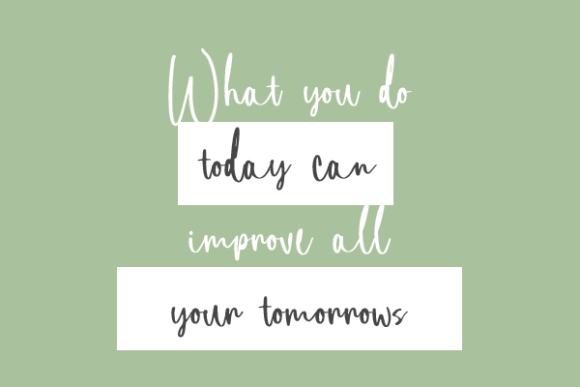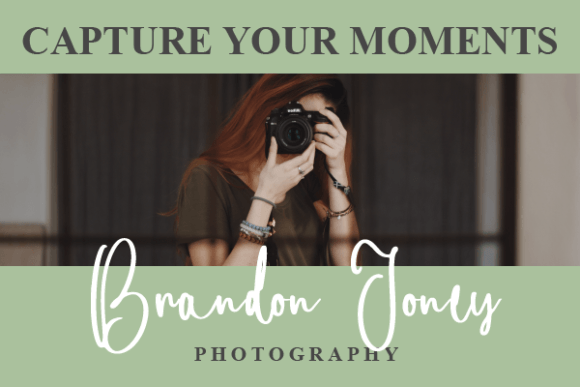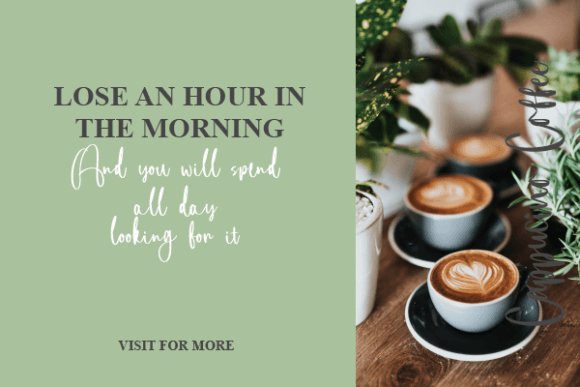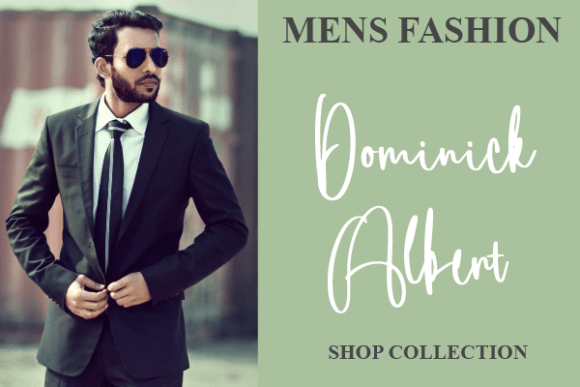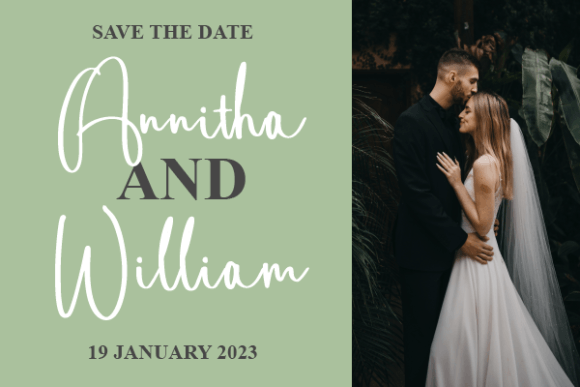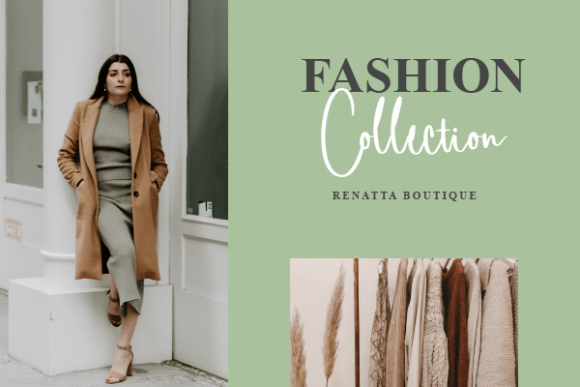
The Perfect Signature: Elevating Your Designs with Canice Signature Font
Have you ever sat at your desk, staring at a blank page, and felt the creative spark ignite within you? The blank slate is both exhilarating and intimidating – but what if you had the perfect tool to bring your ideas to life? For designers, finding that perfect font can be the difference between a mediocre design and a masterpiece. That’s where the Canice Signature Font comes in – a beautifully crafted handwritten font that exudes elegance and sophistication.
With its classy calligraphic influences and contemporary feel, the Canice Signature Font is the perfect addition to any project. Whether you’re working on a wedding invitation, a company logo, or a personal branding project, this font will elevate your designs to new heights. Its versatility and unique charm make it a valuable asset for designers looking to add a touch of personality to their work.
- Font Family: Canice Signature Font is a unique, high-end font family designed for signatures and calligraphy. It comes in 6 styles, each with its own distinct characteristics.
- Unique Characteristics: Canice Signature Font features elegant, flowing lines and subtle flourishes, making it perfect for adding a touch of sophistication to signatures, certificates, and other documents.
I recently had the chance to work with the Canice Signature Font, and I must say, it’s a unique and stylish addition to any design project. ✨ The font’s elegant script style and subtle flair make it perfect for creating a sense of sophistication and luxury. I particularly enjoyed using it for branding and title work, as it really adds a touch of class to any design.
One of the standout features of the Canice Signature Font is its versatility. It can be used in a variety of contexts, from formal events to more casual gatherings. I also appreciate the font’s range of weights, which allows for easy customization and flexibility in my designs.
However, there are a few limitations to consider. ⚠️ For one, the font may not be suitable for all audiences, particularly those with vision impairments, due to its intricate design and fine lines. Additionally, the font’s complexity may make it difficult to read at smaller sizes or in low-light conditions.
- Unique and stylish script style
- Elegant and sophisticated look
- Versatile and suitable for a range of contexts
- Range of weights for easy customization
- Not suitable for all audiences due to intricate design and fine lines
- May be difficult to read at smaller sizes or in low-light conditions
Overall, I’m impressed with the Canice Signature Font and would definitely recommend it to designers looking to add a touch of elegance and sophistication to their work.
Canice Signature Font is ideal for creating elegant and sophisticated designs. Use it for signature logos, business cards, and letterheads. You can also use it for creating beautiful quotes, posters, and flyers. To get the most out of this font, experiment with different font sizes, styles, and colors to create a unique look.